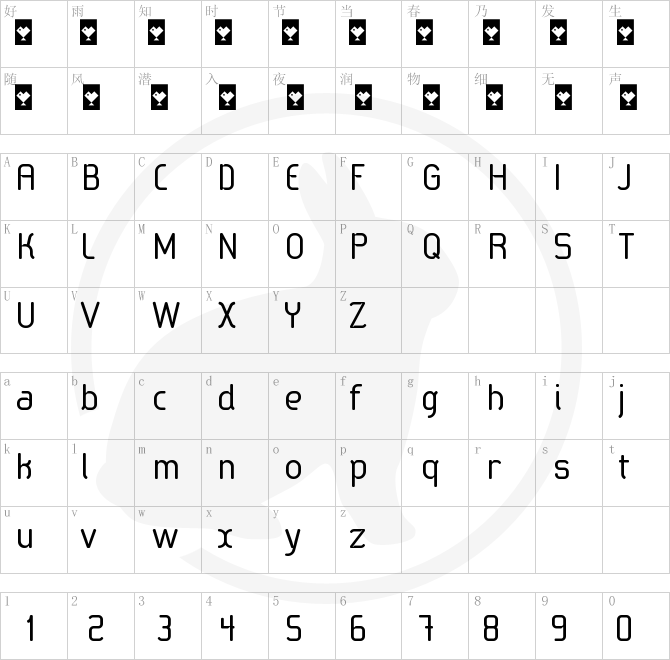
• Font Name:Sabatica Regular
• Subfamily:deFharo: Sabatica Regular: 2012
SabaticaRegular.ttf is a very beautiful artistic font, SabaticaRegular.ttf is widely used in the design and printing of various books and pictures,SabaticaRegular.ttf has a strong visual impact,SabaticaRegular.ttf is a commonly used font in newspapers, magazines and books, and is used in posters, e-commerce Poster design, store design, logo design, font design and other fields.SabaticaRegular.